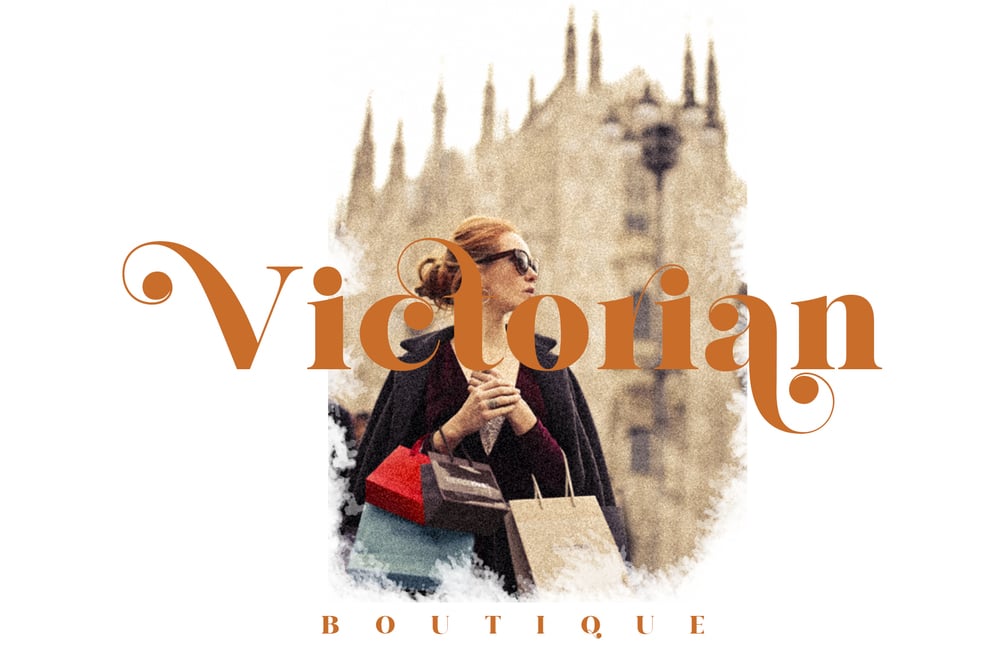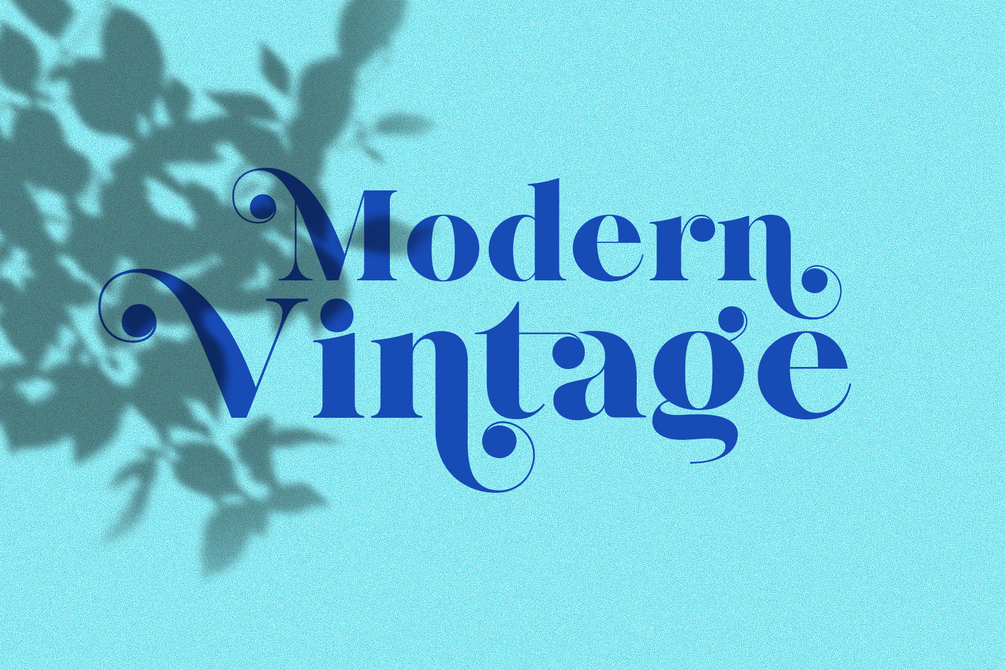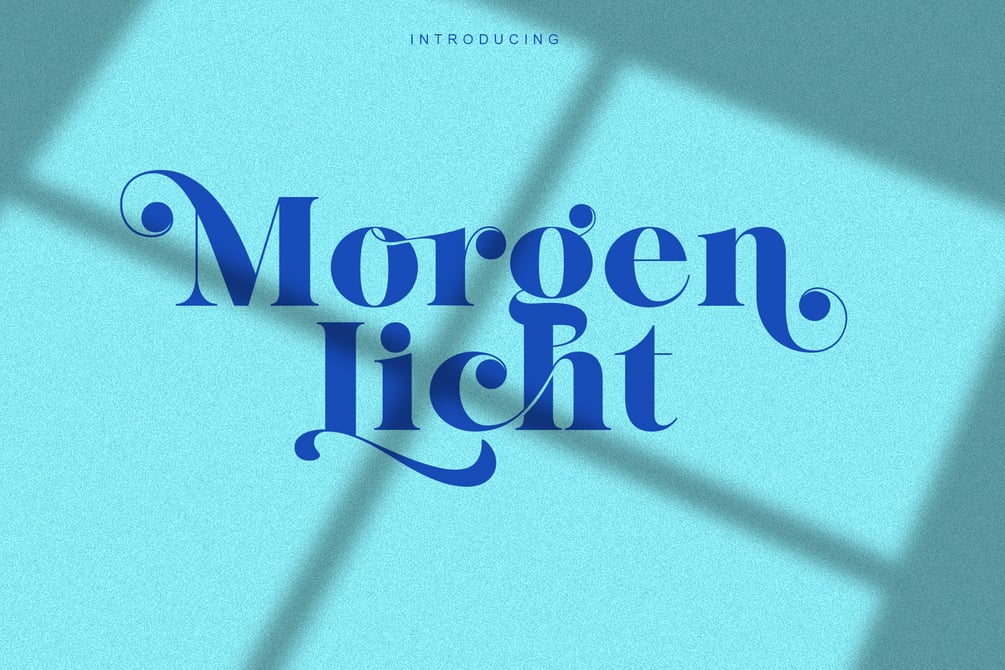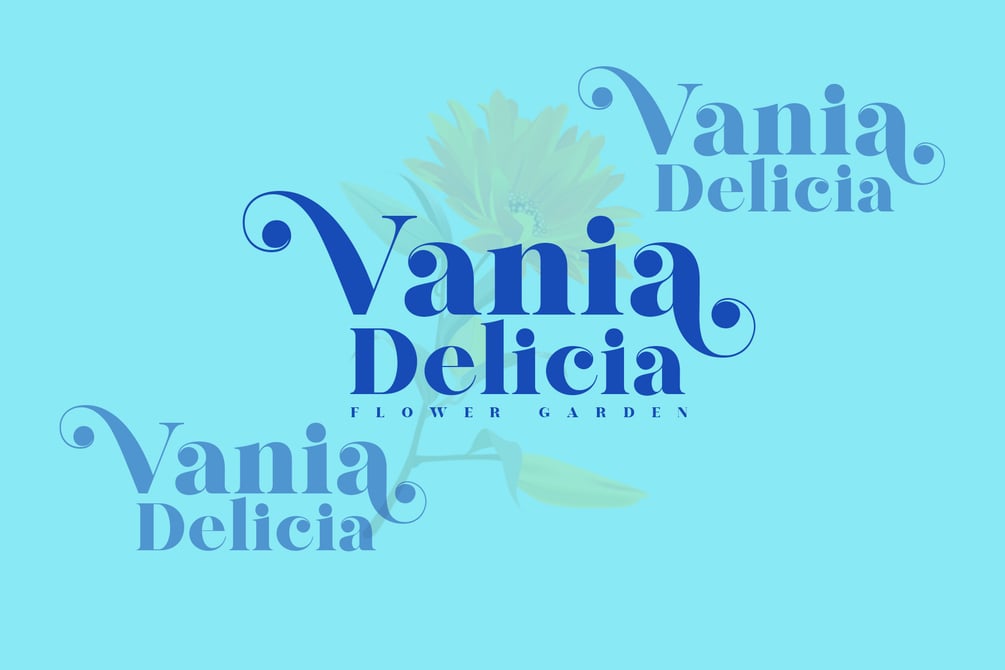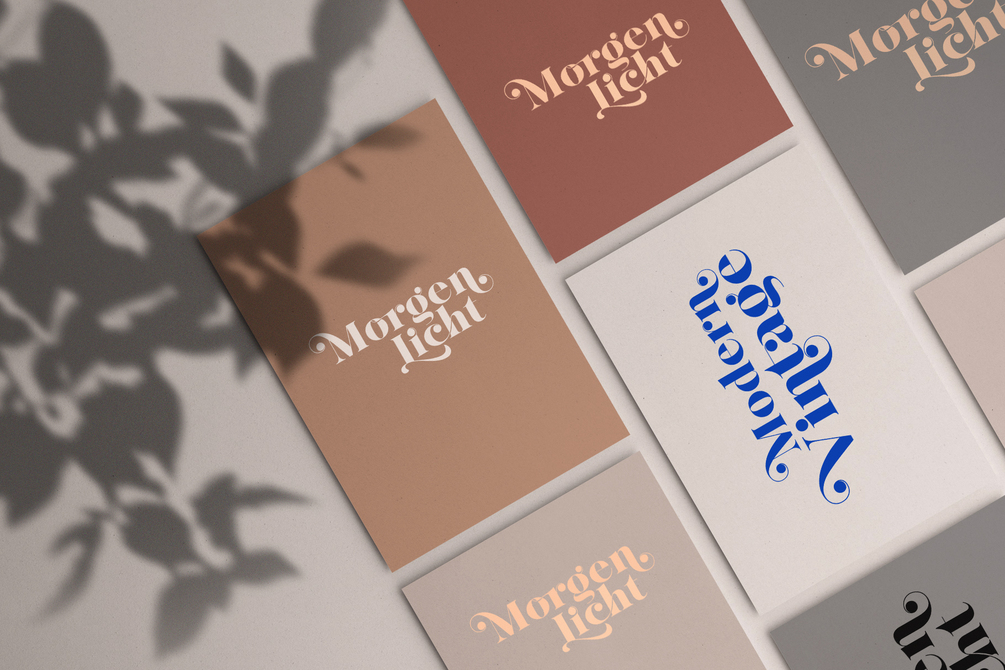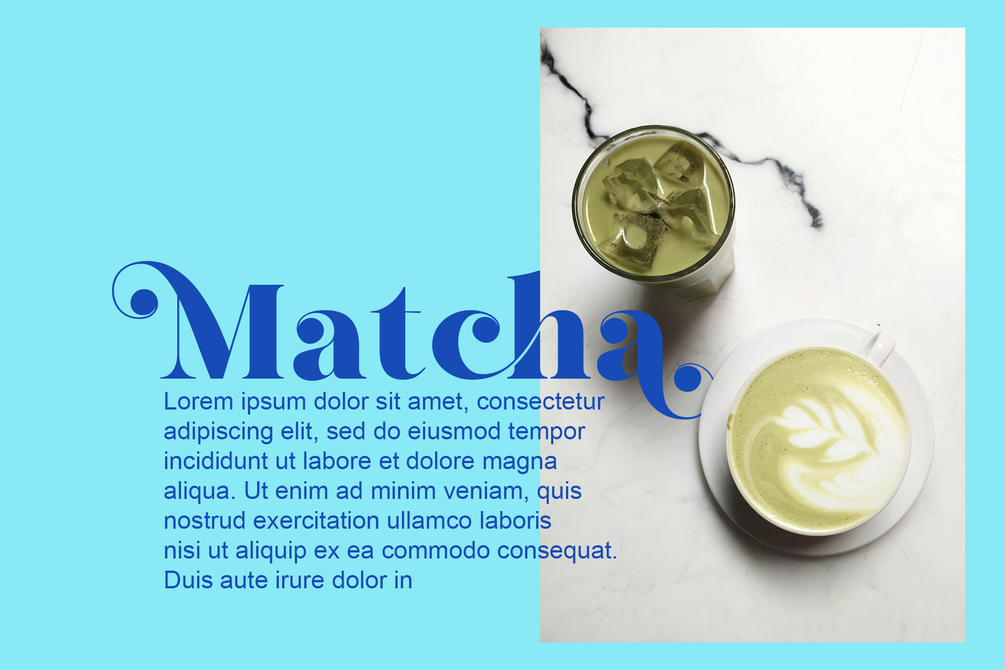
Morgen Licht
ABOUT THE PRODUCT
morgentlich is beauty serif display.This font is suitable for invitation cards, decorations, clothing products, greeting cards and others.
Designed by Handpik